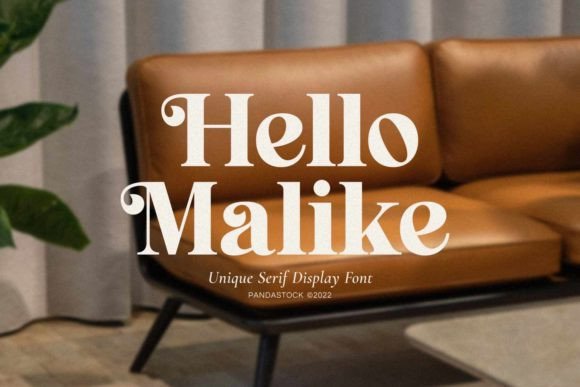
Brace yourself for Hello Malike, a display font that captivates with its visual elegance, smooth curves, and alluring ligatures. This versatile font family seamlessly adapts to various sizes, making it an ideal choice for diverse projects.
Embark on a typographic journey with Hello Malike, a font that dances gracefully across your designs. Its carefully crafted serifs exude a timeless charm, while its modern twist adds a touch of contemporary flair. Witness the harmonious blend of classic and contemporary elements, creating a font that resonates with both tradition and innovation.
Hello Malike's versatility shines in a multitude of applications. From logos that demand attention to invitations that whisper elegance, this font effortlessly elevates your designs. Its presence graces branding projects, magazine layouts, and photography, adding a touch of sophistication to every visual narrative. Unleash your creativity in card designs, product packaging, and product mockups, as Hello Malike transforms ordinary concepts into extraordinary masterpieces.
With Hello Malike, your words take center stage, commanding attention on mugs, quotes, and posters. Create labels that exude exclusivity and signatures that leave a lasting impression. Editorials and websites alike are adorned with the refined beauty of Hello Malike, captivating readers and visitors with its timeless appeal.
In the ever-evolving realm of social media, Hello Malike emerges as a powerful tool for crafting captivating content. Its visually striking presence elevates your messages, ensuring they stand out in a crowded digital landscape. From Instagram posts to Facebook ads, Hello Malike amplifies your brand's voice, attracting followers and driving engagement.
Hello Malike is more than just a font; it's an artistic expression that empowers you to communicate with clarity and style. Its adaptability extends beyond traditional mediums, seamlessly integrating into digital creations. Whether you're designing for web or mobile applications, Hello Malike seamlessly adapts, delivering a consistent and cohesive visual experience across platforms.
With Hello Malike, you possess the key to unlock a world of creative possibilities. Its timeless appeal and versatile nature make it an invaluable asset for designers and creatives alike. Embrace the beauty of Hello Malike and watch your designs flourish with elegance and sophistication.